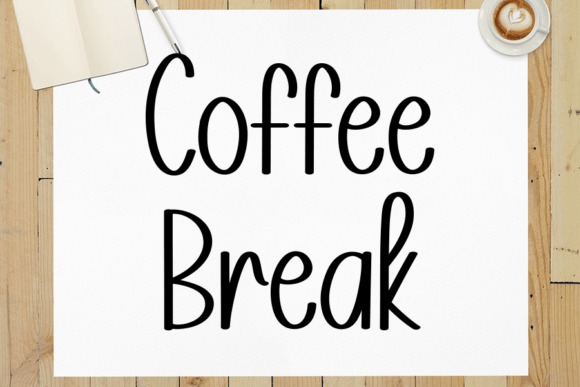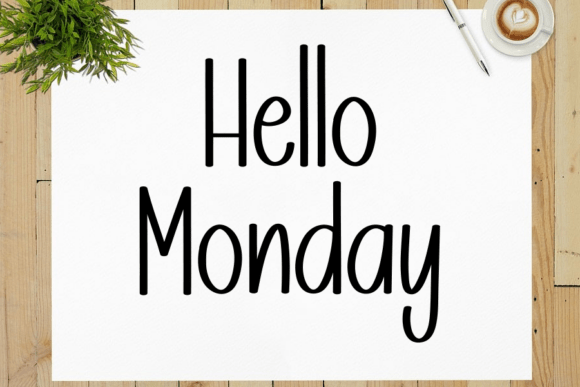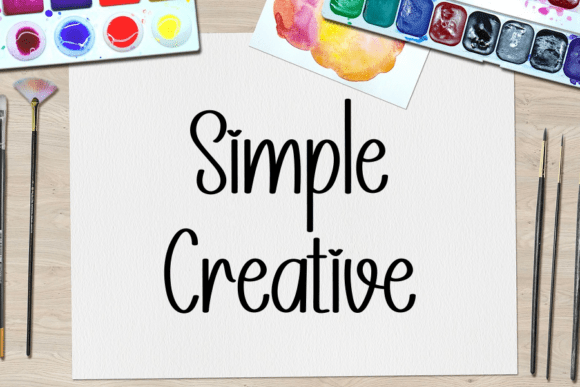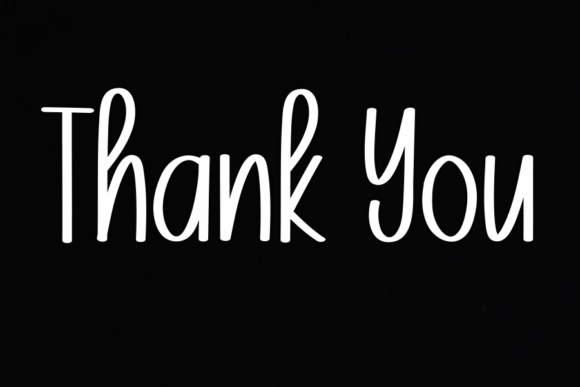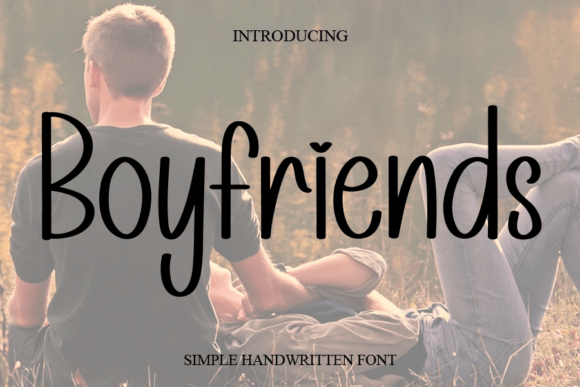
The Designer’s Delight: Getting to Know the Boyfriends Font
I’ll never forget the time I was working on a project for a client who wanted a custom greeting card design. I had all the graphics and images ready, but I was stuck on finding the perfect font. The design needed to be simple, yet elegant; casual, yet sophisticated. That’s when I stumbled upon the Boyfriends font, and it instantly clicked! 💡
This beautiful, simple handwritten font has been a game-changer for my designs ever since. Its versatility and natural feel make it perfect for a wide range of applications, from greeting cards to headlines. In this article, I’ll share my experience with the Boyfriends font, its features, and how to make the most of it in your designs.
- 💕 Simple and natural feel that adds a touch of elegance to any design
- ✅ Highly versatile and suitable for various applications, including greeting cards, headlines, and more
- 🎨 Perfect for designs that require a personal and handwritten touch
- ⚠️ Limited character set compared to some other fonts, which might limit its use in certain projects
- 😐 Not ideal for body text or long paragraphs, as it may become difficult to read
- Experiment with OpenType features, such as ligatures and stylistic alternates, to add more personality to your design
- Explore the font’s glyphs and OpenType features, such as swashes and alternates, to add more flair to your design
The Story Behind Boyfriends Font
The Boyfriends font was designed by a talented typographer who wanted to create a simple, yet elegant handwritten font that could be used in a variety of applications. Inspired by classic handwritten scripts, the designer aimed to create a font that would add a personal touch to any design. With its clean lines and natural feel, the Boyfriends font has become a popular choice among designers and crafters.
Q: What is the Boyfriends font best used for?
A: The Boyfriends font is best used for designs that require a simple, yet elegant handwritten touch, such as greeting cards, headlines, and titles.
Q: Is the Boyfriends font suitable for body text?
A: No, the Boyfriends font is not ideal for body text or long paragraphs, as it may become difficult to read.